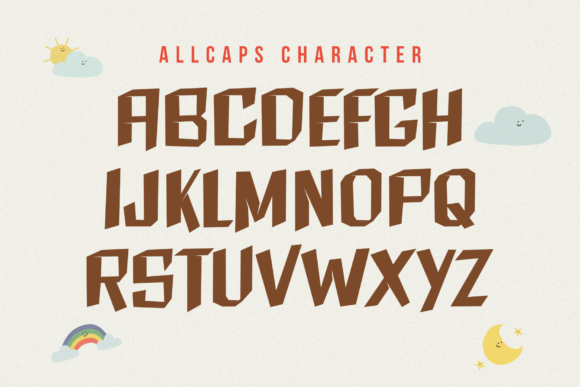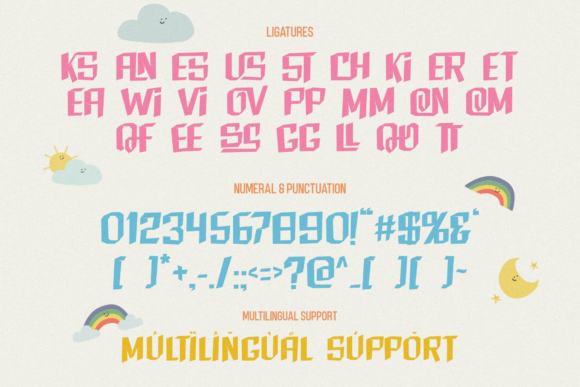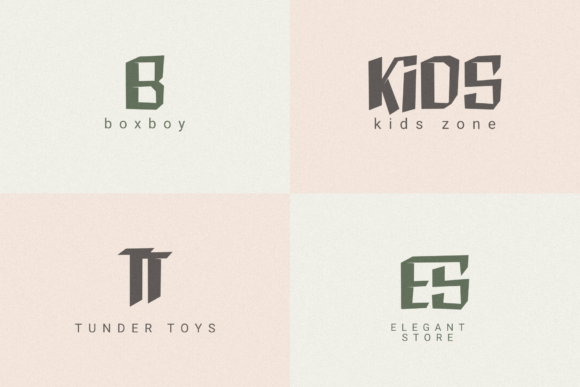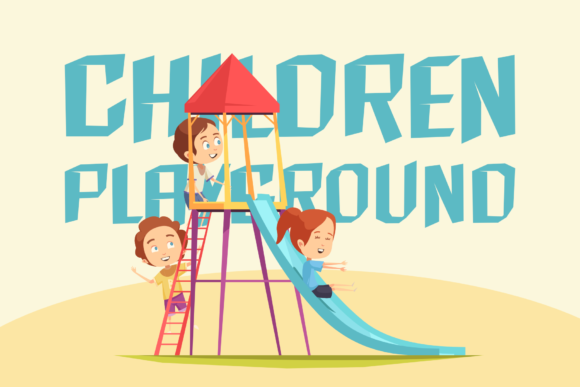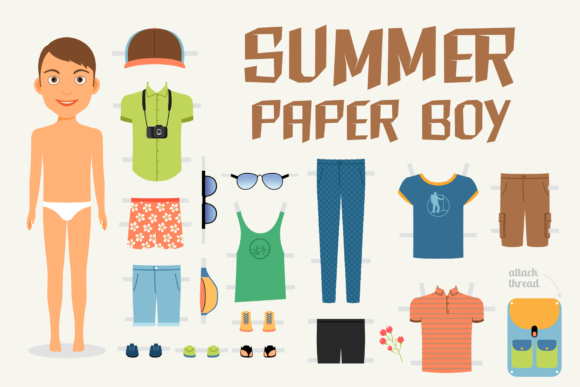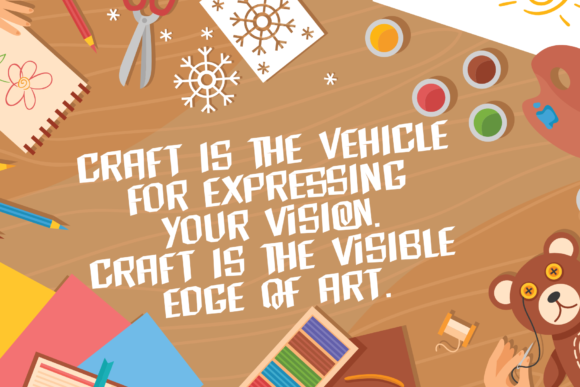
Getting Creative with Block Paper Font
Have you ever been brainstorming a new design project, and suddenly, a spark of inspiration hits you? You envision a vibrant, playful, and futuristic world, and you can’t wait to bring it to life. That’s exactly what happened to me when I discovered the Block Paper Font – a cool, bold, and eye-catching display font that’s perfect for children-themed designs.
Block Paper Font is a versatile tool that’s PUA encoded, making it easy to access all of its glyphs and swashes. This means you can experiment with different combinations to create unique and engaging designs. Whether you’re working on a children’s book, a website, or a social media campaign, Block Paper Font is a valuable addition to your design toolkit.
• Unique Characteristics: The font features a unique blend of hand-drawn and digital elements, giving it a distinctive, organic feel that is both modern and timeless.
• Customization Options: The font includes a range of customization options, including ligatures, swashes, and alternate characters, allowing users to add a personal touch to their designs.
Block Paper Font Review
Overall, I’m impressed with Block Paper Font’s unique aesthetic. The font’s rough, hand-drawn feel adds a touch of personality to digital text ✨. The designer’s attention to detail in crafting the font’s imperfections really pays off, making it feel more human and less robotic.
The font is also incredibly versatile, with a wide range of weights and styles to choose from. From the lightest sans-serif to the boldest display font, Block Paper Font has got you covered ✨.
While Block Paper Font is a great choice for many projects, it’s not without its limitations ⚠️. One of the main issues is its lack of legibility in smaller text sizes. At certain point-sizes, the font can become difficult to read, which may be a concern for projects that require large amounts of body text.
Another limitation is the font’s lack of consistency across different platforms. While it looks great on web and desktop, it can appear somewhat pixelated on mobile devices ⚠️.
Conclusion
Overall, I think Block Paper Font is a great choice for projects that require a unique, hand-drawn feel. While it may have some limitations, the font’s versatility and aesthetic make it a solid choice for designers looking to add some personality to their work.
• Unique aesthetic
• Wide range of weights and styles
• Great for projects that require a hand-drawn feel
Getting the Most Out of Block Paper Font
To achieve the best results with Block Paper Font, experiment with different font sizes, colors, and arrangements. You can also combine it with other design elements, such as textures and graphics, to create a unique and eye-catching look.
Block Paper Font is ideal for creating DIY-style designs, such as:
– Invitations and party decorations
– Wedding stationery and decorations
– School and office projects